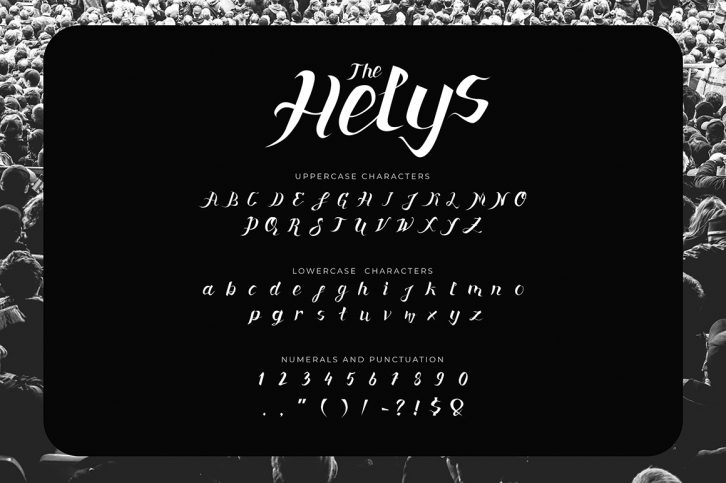
The Helys is a trendy and unique font with an authentic style. It was designed by Profont Studio and it's a great choice for creative people who need such a font. It was released on October 2, 2018 and the file size is 16.81 MB. The Helys will add an organic vibe to any design idea!